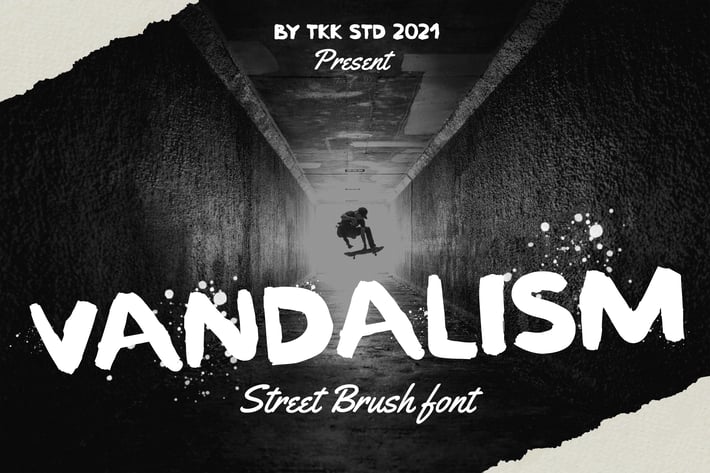
Vandalism - Street Brush font
VANDALISM – A Raw, Street-Style Typeface for Bold Statements
Vandalism is a gritty street brush typeface built for raw visual impact. With jagged brush strokes, bold structure, and unpredictable flow, this font mimics the rebellious nature of urban graffiti and underground culture. Its expressive strokes and high contrast give it a hand-tagged feel, while still maintaining readability for loud headlines and logo designs.
Perfectly suited for music posters, streetwear drops, extreme sports flyers, and any project that demands energy, defiance, and edge. The letterforms are aggressive, with an organic brush texture and asymmetrical baseline—instantly signaling attitude and movement.
If your audience lives on the streets, on stage, or in the skatepark, Vandalism is your voice. This font was made for breaking rules—ideal for branding extreme sports events, streetwear apparel, tattoo shops, and rock band merch. It brings emotion-driven edge to posters, album covers, or social graphics, creating an instant sense of youth culture, movement, and rebellion.
Key Features
Why Vandalism Works:
- Handcrafted Grit: Built from real brush strokes for authentic urban character
- Dynamic Energy: Feels alive and fast, like a fresh tag on a city wall
- Versatile Urban Appeal: Use it for music, fashion, skateboarding, and cultural branding
- Raw Aesthetic: Adds tension and motion to typographic compositions
- Visually Bold: Holds attention in high-contrast layout